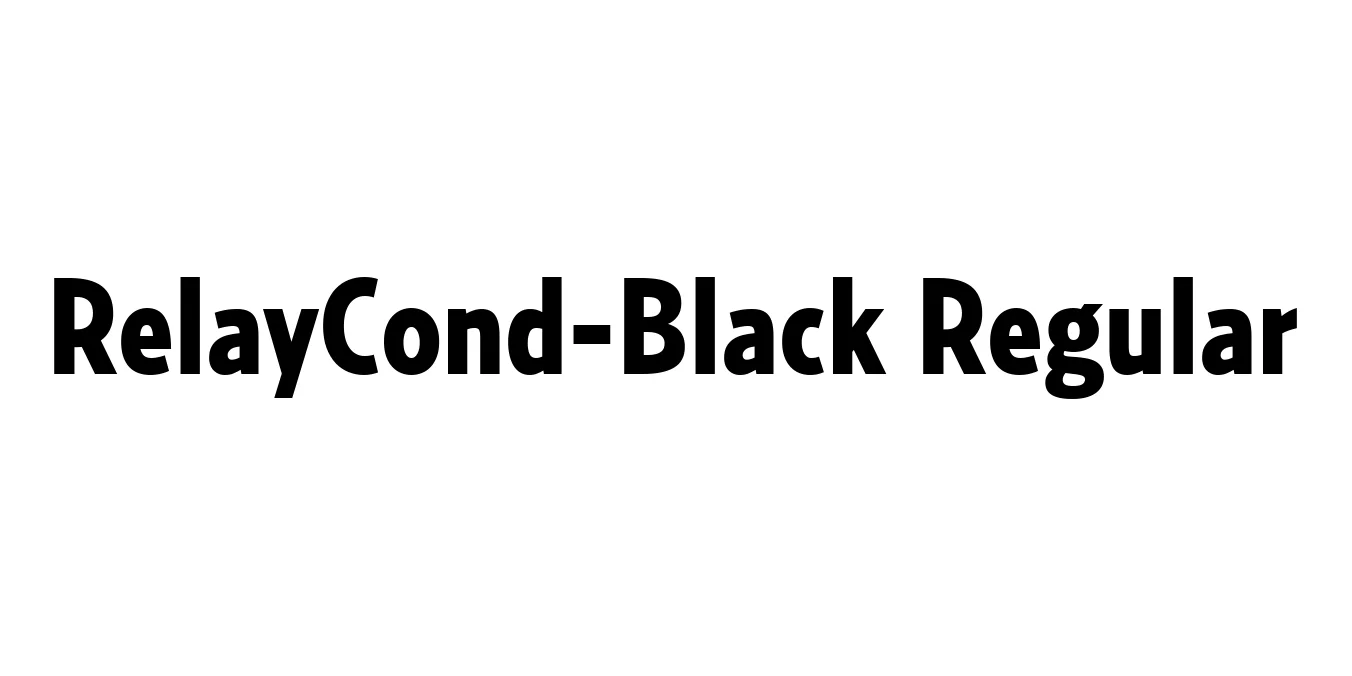
RelayCond-Black Regular
Designed by Cyrus Highsmith
Relay Condensed Black is a powerful sans-serif typeface designed by the renowned typographer Cyrus Highsmith. Originally released through Font Bureau and now part of the Occupant Fonts collection, Relay was inspired by a unique intersection of mid-century Swiss design and the streamlined aesthetics of early 20th-century transportation. The Condensed Black weight is specifically engineered to provide maximum visual impact within a narrow horizontal footprint, offering a dense and authoritative presence.
The design of Relay features subtle hints of Art Deco geometry blended with a strictly modern, utilitarian structure. Its rhythmic verticality and tight proportions make it an exceptional choice for editorial environments where space is at a premium but a strong typographic voice is required. It balances a cool, industrial feel with a sophisticated elegance that has made it a favorite for magazine headlines and high-end branding projects worldwide.
RelayCond-Black Regular Best Uses
Ideal for bold, attention-grabbing titles in print and digital media.
The heavy weight and compact width are perfect for large-scale displays and advertisements.
Excellent for high-density layouts where space-saving is necessary for subheaders.
Provides a strong, masculine, and sophisticated corporate identity for modern brands.